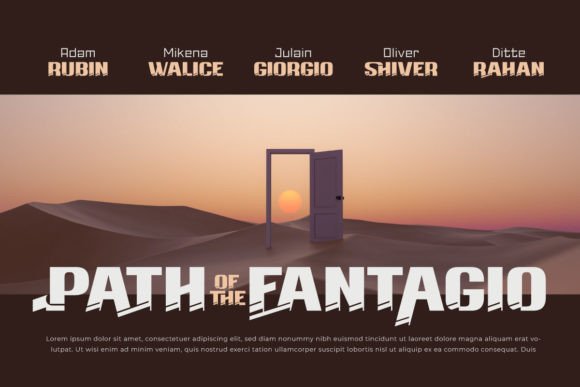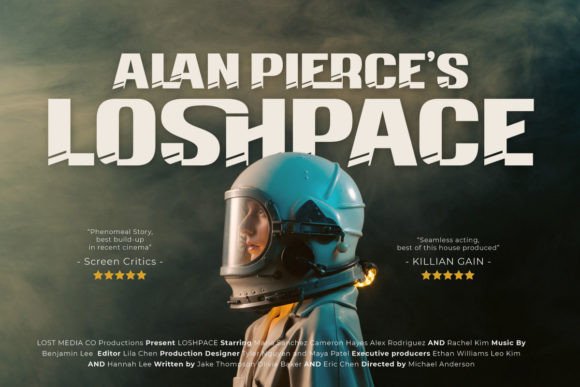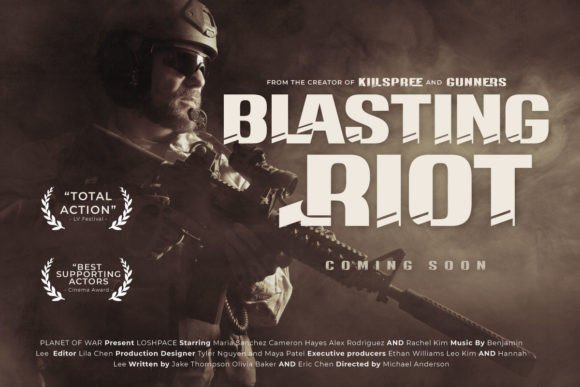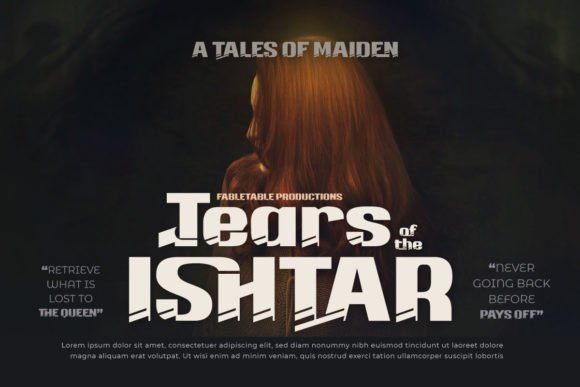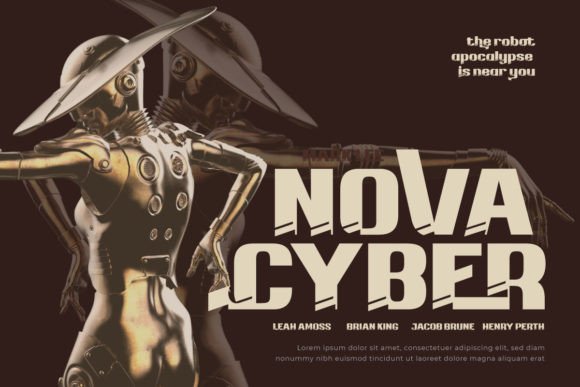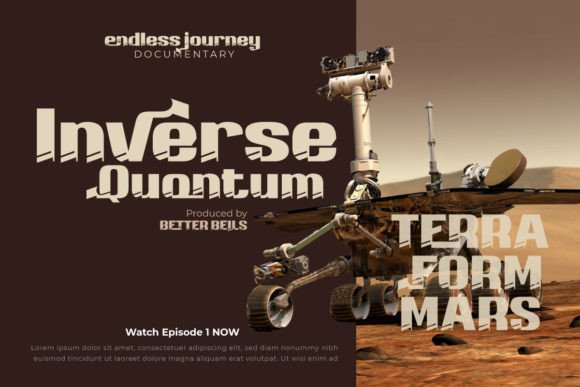
The Heroic Typeface: Unlocking the Power of Athewe Font
Have you ever stared at a blank page, waiting for that spark of creativity to ignite? You’re not alone. We’ve all been there, searching for the perfect combination of words and design to convey our message. But what if I told you that there’s a typeface that can give your projects the bold, superhero-like impact you’ve been searching for?
Enter Athewe Font, a powerful display font designed to make a lasting impression. This courageous typeface is specifically crafted for projects that demand attention, from bold headlines to eye-catching graphics. With its strong, dynamic feel, Athewe Font is the perfect solution for designers looking to unleash their creativity and make a statement. Whether you’re working on a marketing campaign, a comic book, or a video game, Athewe Font is the ultimate ally in your design arsenal.
Athewe Font Key Features
- Unique Characteristics: Features a unique blend of modern and vintage aesthetics, with subtle texture and distressed effects
Athewe Font Review
Overall, I was quite impressed with the Athewe Font. Here are a few things that stood out to me:
- ✨ The font’s unique and quirky design style, which I think would be perfect for creative projects or brands that want to stand out.
- ✨ The font’s high level of customization, which allows designers to adjust the weight, width, and even the individual letterforms to suit their needs.
- ✨ The font’s excellent legibility, even at small font sizes, making it a great choice for body text or headlines.
However, I did encounter a few limitations:
- ⚠️ The font’s irregularities can sometimes make it difficult to read, particularly for those who are not used to seeing this type of font.
- ⚠️ The font’s complexity can make it a bit of a challenge to work with, particularly for designers who are new to using custom fonts.
Overall, I would say that the Athewe Font is a great choice for designers who are looking for a unique and eye-catching font for their projects. While it may have some limitations, I think the benefits far outweigh the drawbacks.
Tips for Getting the Most Out of Athewe Font
To get the most out of Athewe Font, consider the following tips:
- Use Athewe Font in conjunction with other creative fonts to add visual interest.
- Experiment with different font sizes and styles to achieve a unique look.
- Use Athewe Font in headings and titles to create a strong visual hierarchy.
Athewe Font is commonly used in: